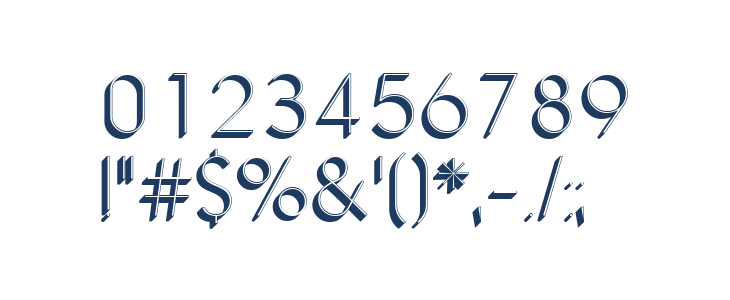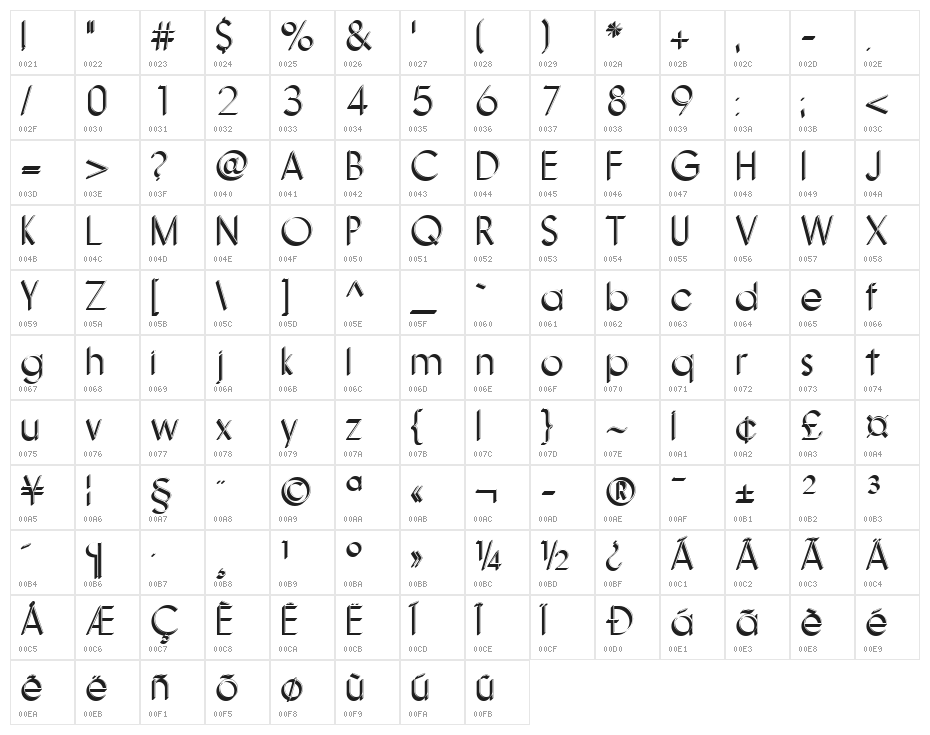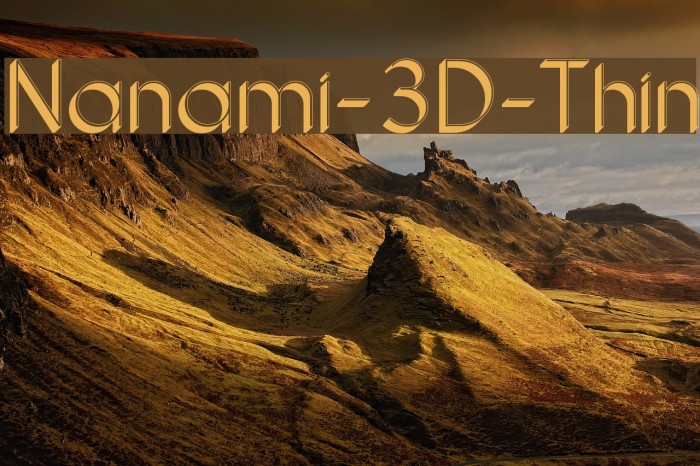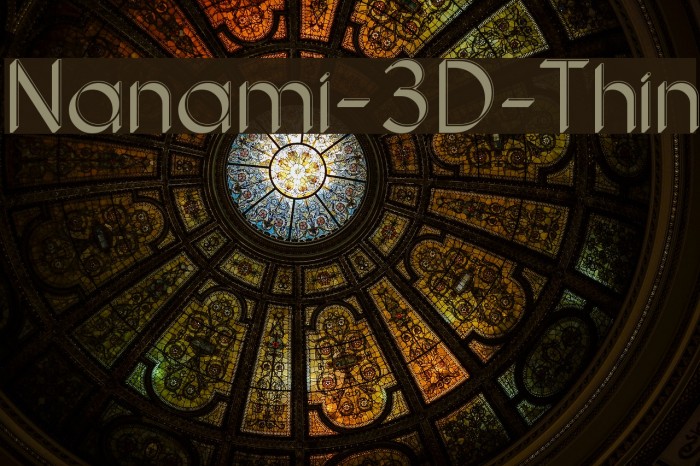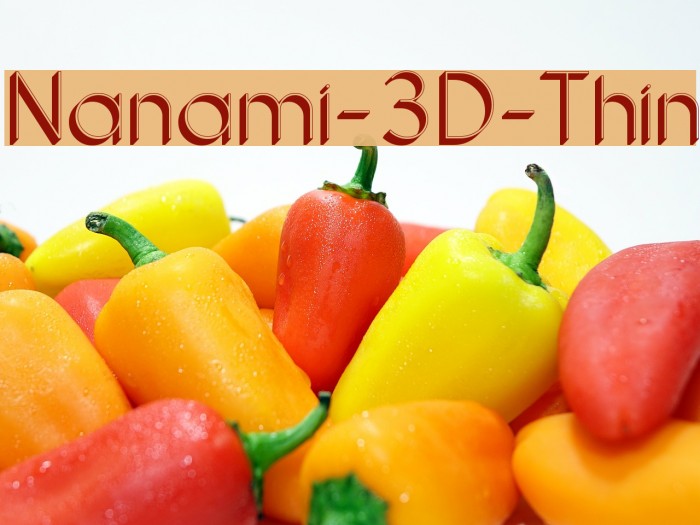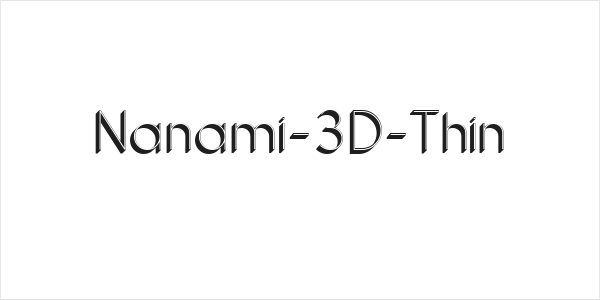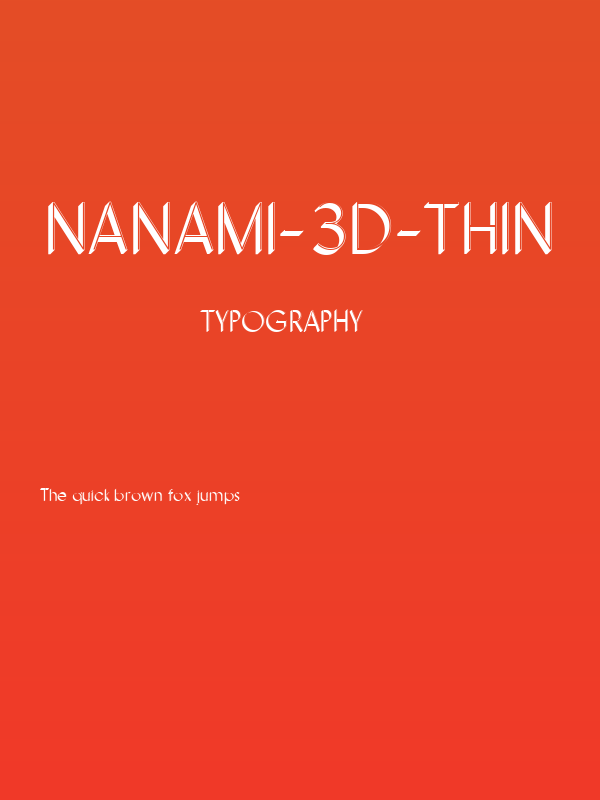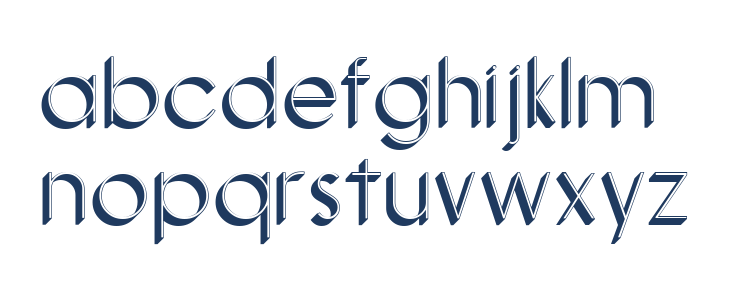
Nanami-3D-Thin Font
Nanami-3D-Thin Description
This font features a sleek, modern design with a three-dimensional effect that gives it a unique, futuristic appearance. The letters are crafted with clean lines and sharp angles, creating a sense of depth and movement. The uppercase and lowercase letters maintain a consistent style, with a slight slant that adds to the dynamic feel. The numerals and special characters follow the same design principles, ensuring a cohesive look across all elements. This font's distinct style makes it ideal for projects that require a bold, eye-catching typeface.
Proposed ProjectsIdeal for branding, posters, digital artwork, and any project needing a modern, eye-catching typeface.